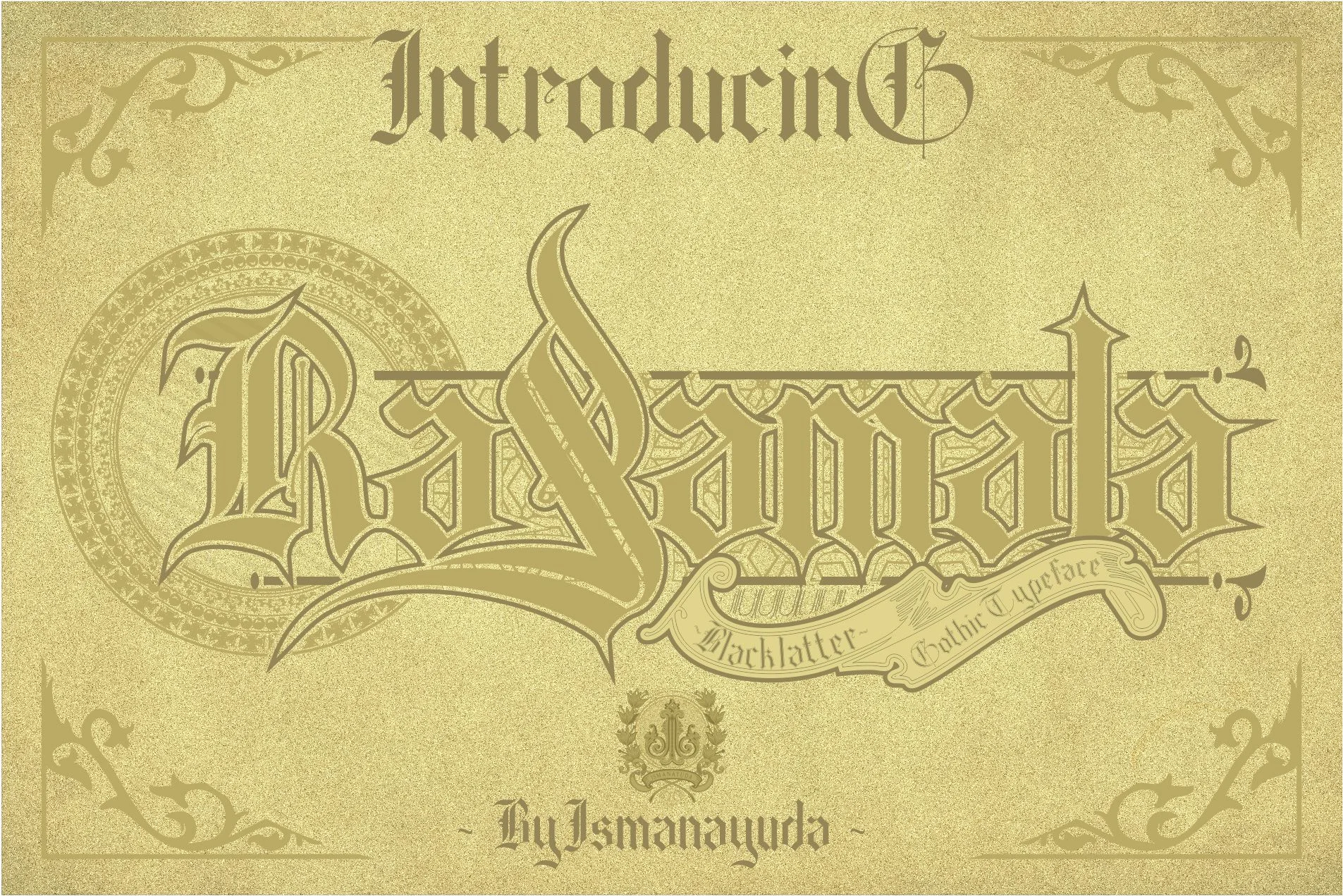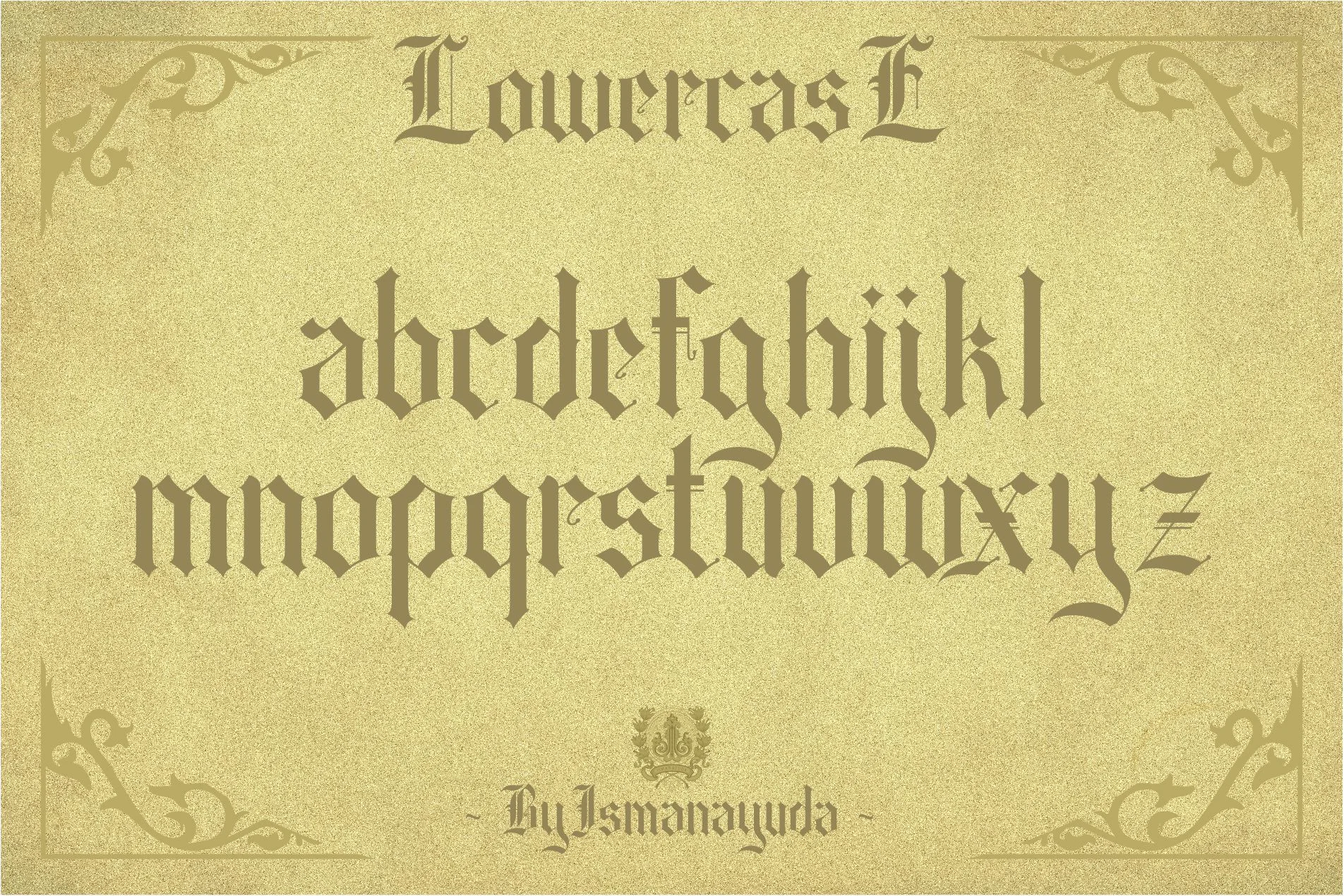
Rasamala
Rasamala is a decorative, imposing typeface characterized by uniquely shaped letters and a distinct Victorian-style influence. It features sharp, angular strokes typical of traditional blackletter scripts, combined with ornate flourishes and aggressive swashes. This high-impact "Gothic Typeface" is specifically designed for creative projects that require a bold, heritage-inspired look, such as tattoo studio branding, metal band logos, vintage apparel mock-ups, and specialized shop signage.